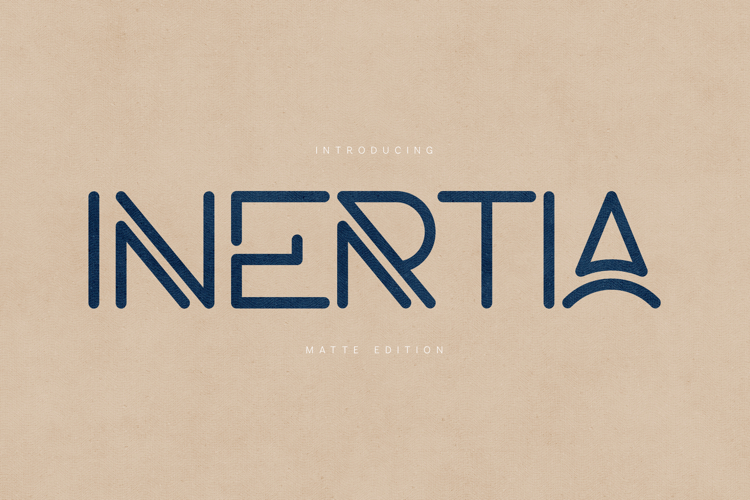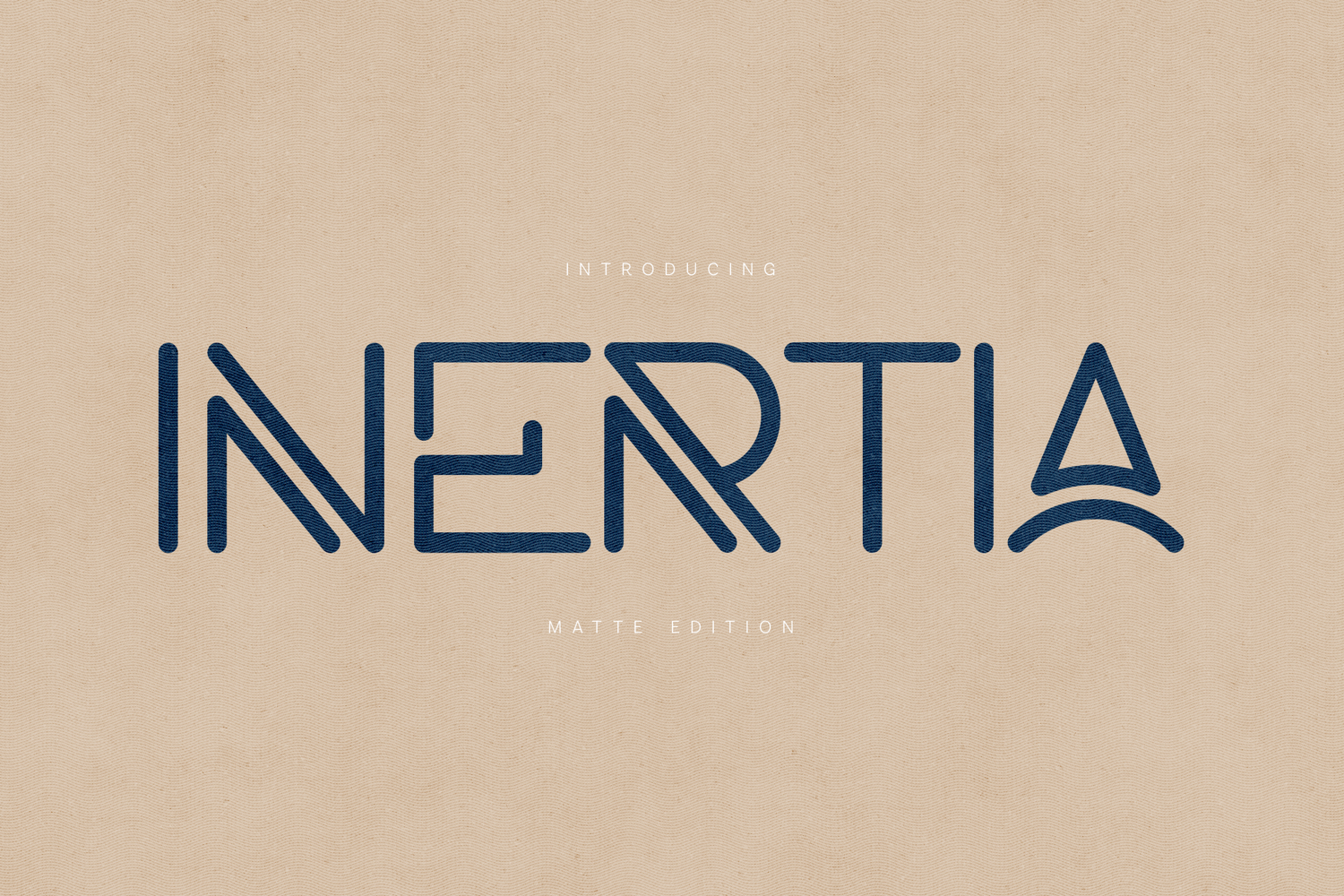
Inertia Modern Geometric Sans Serif Font Family
Inertia is a modern geometric sans serif font family designed with precision, balance, and a distinctive structural rhythm. Inspired by clean architectural lines and subtle motion, Inertia blends minimalism with character through unique curved connections and refined detailing.
This versatile typeface is perfect for branding, editorial design, posters, packaging, logos, headlines, and contemporary visual identities. Its carefully crafted letterforms feature smooth transitions, subtle decorative curves, and a strong yet elegant presence that stands out in both large display settings and refined layouts.
Inertia supports extended Latin characters, making it ideal for multilingual projects. It includes uppercase, lowercase, numerals, punctuation, symbols, and diacritics to ensure broad language coverage.